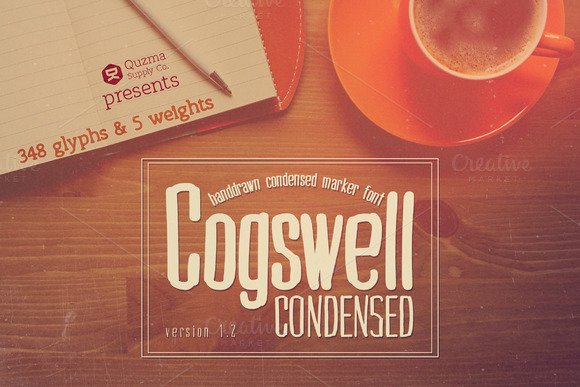
Introduction to Cogswell Condensed Font
Cogswell Condensed is a unique, handmade sans serif font.
It is ideal for vintage signs and headers, logos, t-shirts, quotes or replicating handwritten marker text, and much more .